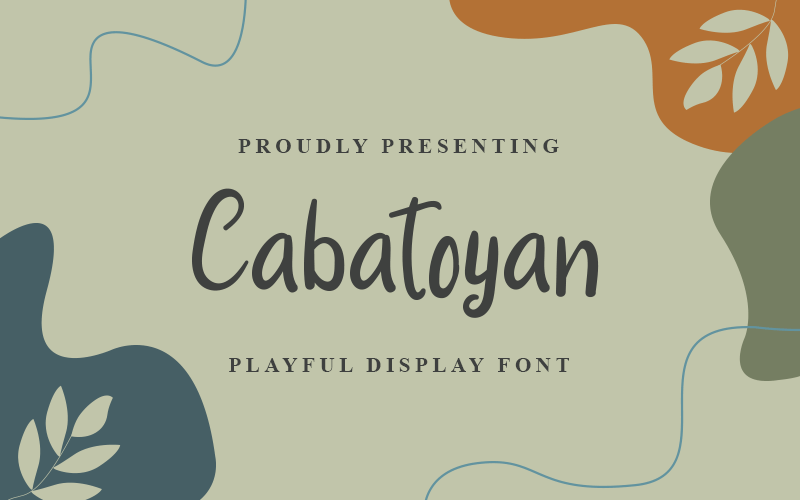
Font name: | Cabatoyan |
Author: | Denny Sutanto |
Cabatoyan Font is a Playful Display Font which is perfect choice for any Children Design. It will elevate a wide range of design projects to the highest level, be it branding, headings, wedding designs, signatures, logos, labels, and much more! this font will be an incredibly asset to your fonts� library, as it has the potential to elevate any creation. What�s Included : � OTF & TTF � Works on PC & Mac � Easy to use ( Installations ) � Easy Convert to webfont � Compabilty Windows, Apple, Linux, Cricut, Silhouette and Other cutting machines Note of the author: NOTE: This Demo is for PERSONAL USE ONLY! But any donation are very appreciated. PayPal Account for Donations: https://lnkd.in/fPg-VuA Link for Donations via PayPal: paypal.me/dennysutanto93 link to purchase full version and commercial license: - Ceative Fabrica: https://www.creativefabrica.com/product/cabatoyan/ref/235725/ - bit.ly: http://bit.ly/cabatoyanfont Please visit our store for more great fonts: - https://www.creativefabrica.com/designer/densudesign/ and follow my Instagram for update: https://www.instagram.com/densudesign/ Thank You |